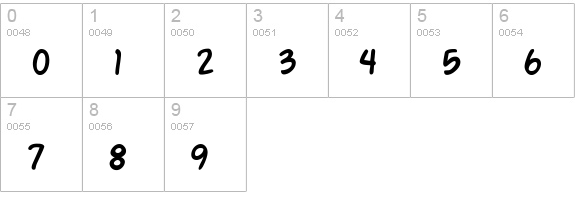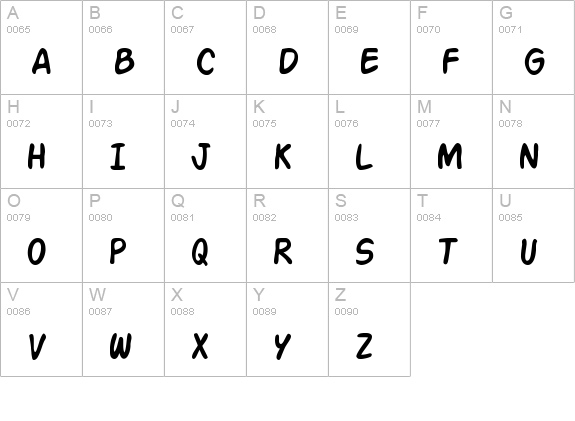
Action Man font is a dynamic and bold typeface designed to make a statement. Its sharp edges and strong lines exude power and energy, making it perfect for titles, headlines, and other attention-grabbing text. Whether you're creating marketing materials, posters, or social media graphics, Action Man font is sure to captivate your audience and leave a lasting impression. The best part? Action Man font is available for free download at FontsMarket.com. This means you can easily access this striking font and incorporate it into your projects without any cost. Don't miss out on the opportunity to enhance your designs with the impactful style of Action Man font - download it today and let your creativity shine!